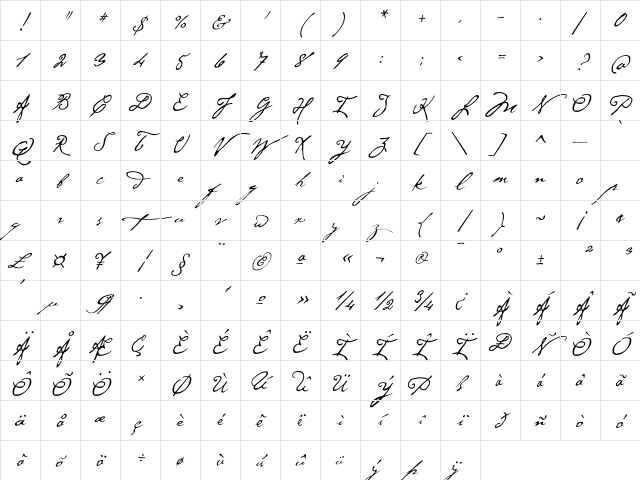
Complete P22 Cezanne Pro Regular glyph index. Displaying only characters natively supported by P22 Cezanne Pro Regular font.
P22 Cezanne Pro is a composed and adaptable typeface that performs quietly and consistently across a wide range of design contexts.